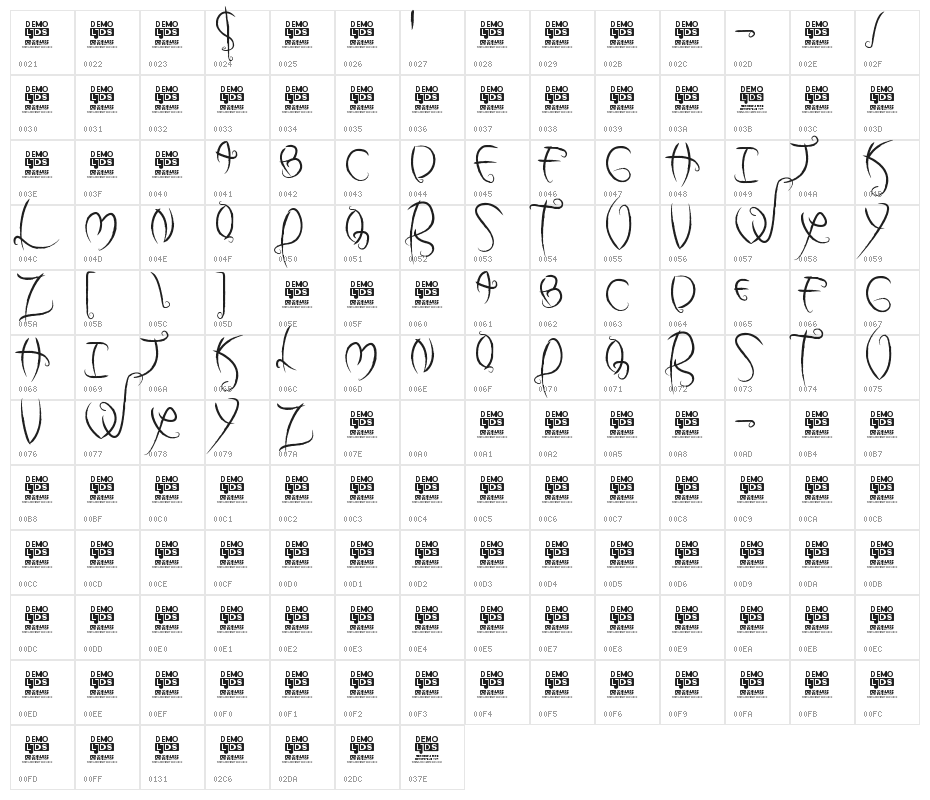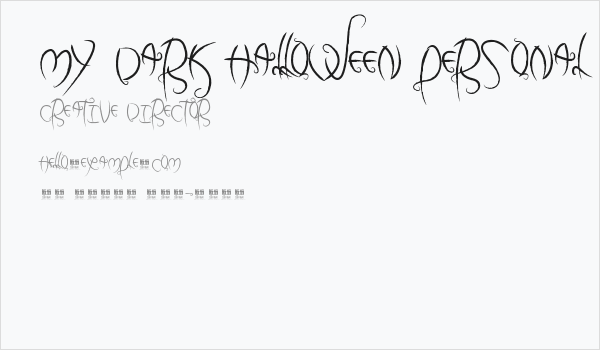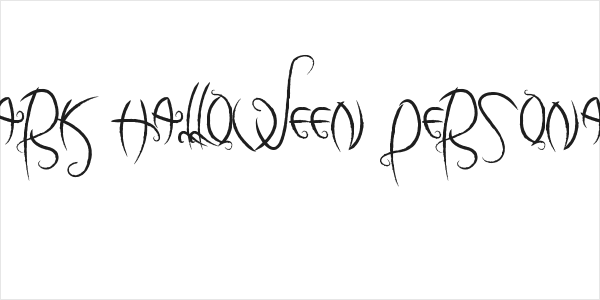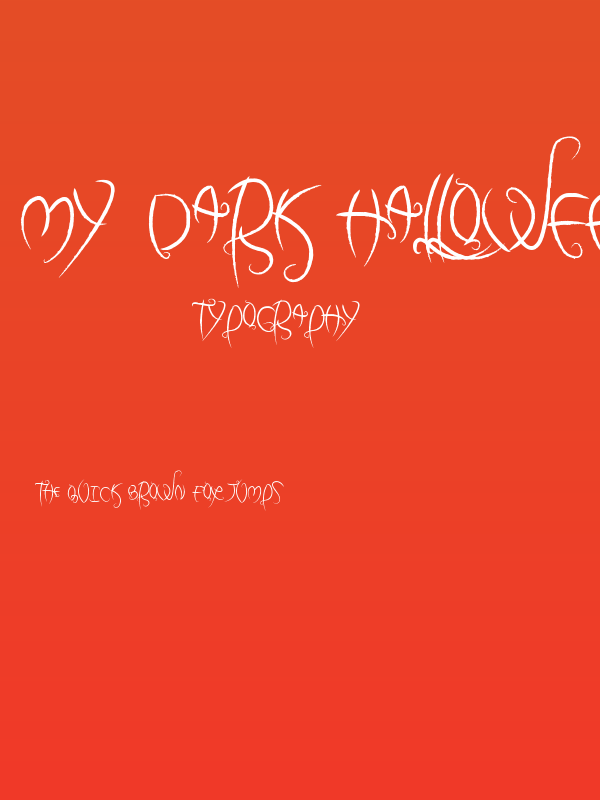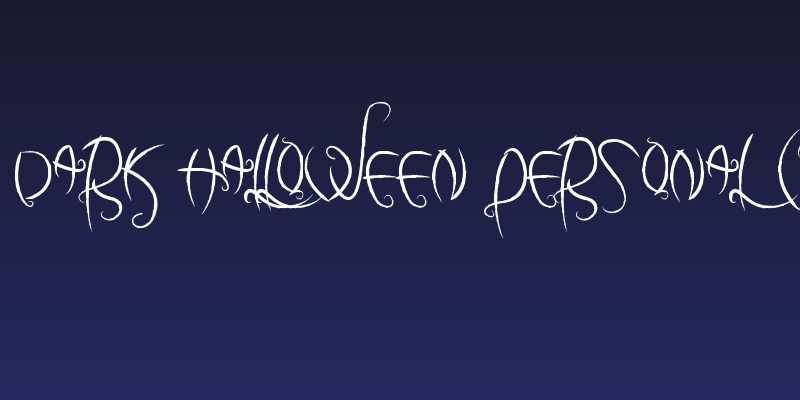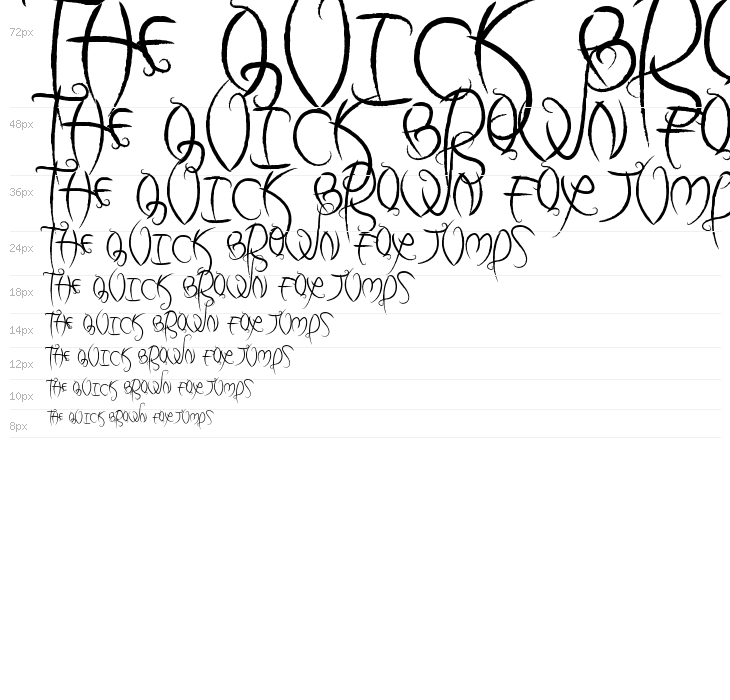
my dark halloween Personal Use Font
my dark halloween Personal Use Description
This font features a unique and eerie design, perfect for Halloween-themed projects. The letters are characterized by their elongated and twisted forms, with sharp, pointed edges and decorative swirls that add a sense of mystery and darkness. The uppercase and lowercase letters maintain a consistent style, with a slightly gothic and whimsical appearance. The numbers and special characters follow the same design principles, ensuring a cohesive look across all text elements. This font's distinct style makes it ideal for creating eye-catching titles and headings, especially in contexts that require a spooky or fantastical aesthetic.
| Proposed Projects | Ideal for Halloween invitations, horror-themed posters, and fantasy book covers. |